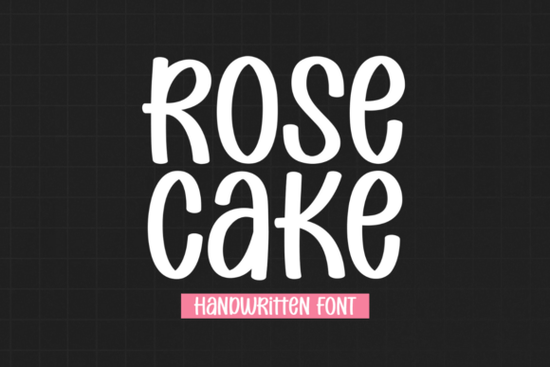
Finding the right handwritten font for your next project can make all the difference. Rose Cake Font is a modern, flowing script font with beautifully balanced characters. Whether you're designing wedding invitations, crafting logos, or creating quote prints to sell online, this font brings a polished yet personal feel to your work. Let's look at what makes it stand out and how you can use it across different creative projects.
What Makes This Font a Good Fit for Design Work?
Rose Cake has a smooth, flowing style that feels both elegant and approachable. The letterforms are well-balanced, which means they look clean at different sizes from large header text down to smaller supporting copy. That kind of versatility matters when you're working on projects that need to scale, like branding materials, social media graphics, or printed products.
The modern handwritten style sits in a sweet spot between formal and casual. It doesn't look too stiff, but it also doesn't feel messy. That balance makes it useful for a wide range of applications, especially when you need a script font that works for elegant designs without feeling overdone.
What Types of Projects Work Well with This Font?
Here are some practical ways designers and small business owners are using fonts like Rose Cake:
- Wedding invitations and stationery The flowing script style pairs beautifully with floral or soft-toned layouts.
- Logo design It adds a personal, handcrafted touch to brand identities, especially for boutique or lifestyle brands.
- Quote prints and wall art Handwritten scripts are a popular choice for typographic prints sold on Etsy or other marketplaces.
- Greeting cards From birthday cards to thank-you notes, a font like this brings warmth to the message.
- Social media graphics Instagram posts, Pinterest pins, and story templates often benefit from a stylish script accent.
- Packaging and labels Small businesses selling candles, soap, or baked goods can use it for a handmade aesthetic on their labels.
If you work in print-on-demand, pairing Rose Cake with complementary typefaces can help you create designs that feel cohesive and professional. Try combining it with a clean sans-serif for body text to keep things readable.
How Does Rose Cake Compare to Other Script Fonts?
There are plenty of handwritten and script fonts available, so how does this one stack up? Let's compare it with a few other popular options:
Rose Cake sits comfortably in the middle it's stylish without being overly decorative, and modern without feeling cold. That makes it a reliable choice when you're not sure exactly what tone you need.
Is Rose Cake Easy to Work With?
Yes, and that's one of its strengths. The consistent character design means you won't spend extra time adjusting letter spacing or kerning. It flows naturally in most design software, including Canva, Adobe Illustrator, Photoshop, and Cricut Design Space.
For crafters who use cutting machines, the smooth curves in this font make it easier to weed vinyl and cut clean lines. This is a practical detail that can save real time, especially if you're fulfilling customer orders.
It also includes standard character sets, so you should have access to the letters, numbers, and punctuation you need for most English-language projects.
Tips for Getting the Most Out of This Font
- Pair it with a simple sans-serif Fonts like Montserrat or Poppins create a nice contrast for body text.
- Use it at medium to large sizes Like most script fonts, it reads best when it has room to breathe.
- Adjust letter spacing for headings A little tightening or loosening can help it fit your layout better.
- Test it in mockups first Before committing to a final design, see how it looks on a mug mockup, a card template, or a social media post.
Should You Add Rose Cake to Your Font Collection?
If you regularly work on projects that need a modern, elegant handwritten style, Rose Cake is worth considering. It's versatile enough for branding, wedding stationery, quote art, and everyday design tasks. The clean character design makes it easy to work with, and it pairs well with both serif and sans-serif typefaces.
For designers and small business owners who need a dependable script font that doesn't overdo it, Rose Cake delivers a polished look without the extra fuss.